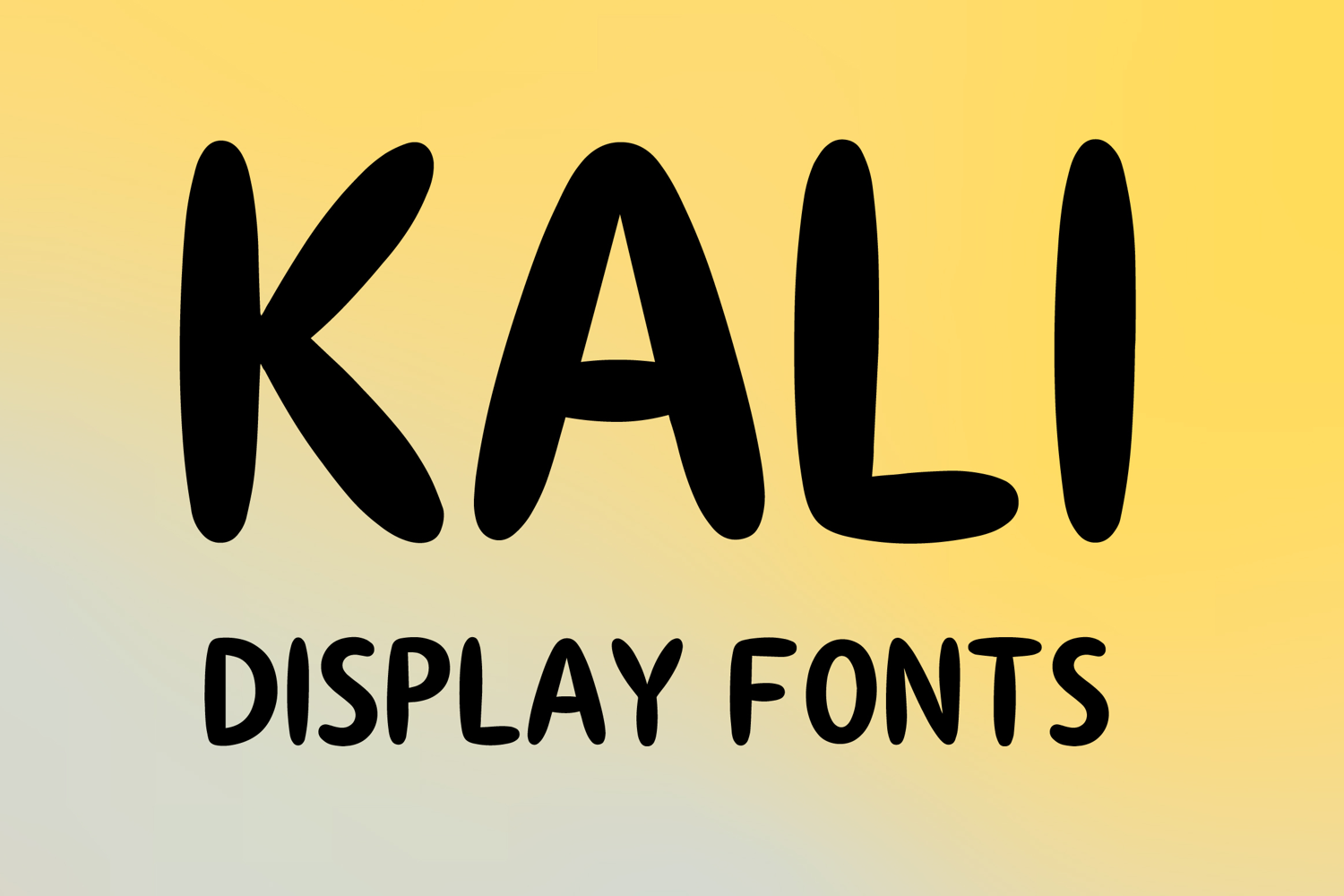
KALI
KALI is a bold playful display font with a soft hand-drawn style and friendly modern charm. Its uppercase letterforms feature thick rounded strokes, smooth organic curves, and a warm approachable look that creates a fun, cheerful, and eye-catching personality. Designed with uppercase letters A–Z and numbers 0–9, KALI is perfect for branding, posters, packaging, logos, kids’ designs, social media graphics, and creative projects that need a joyful and memorable statement.